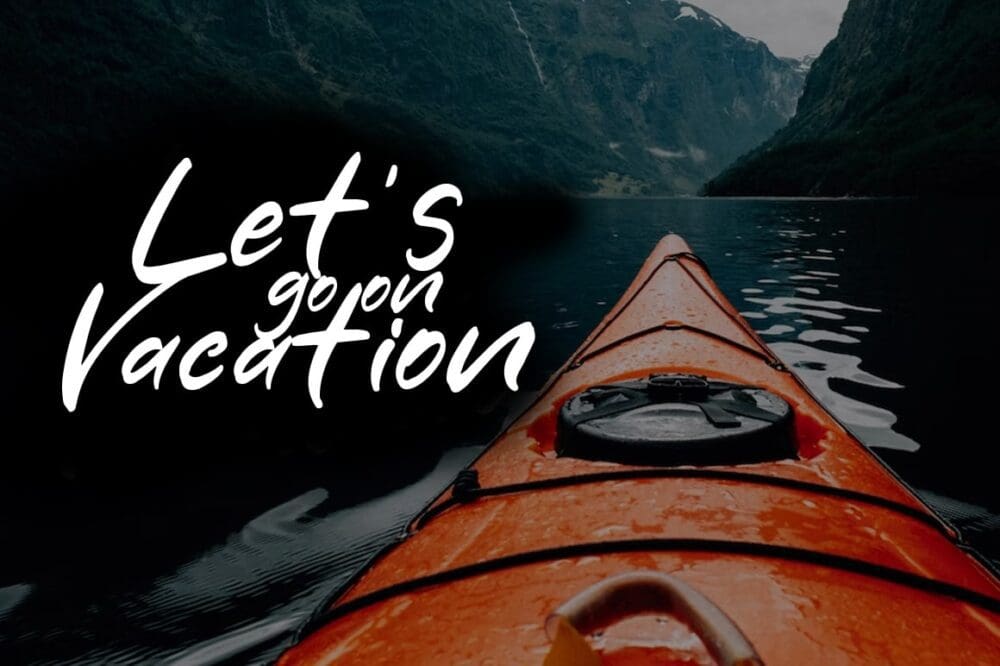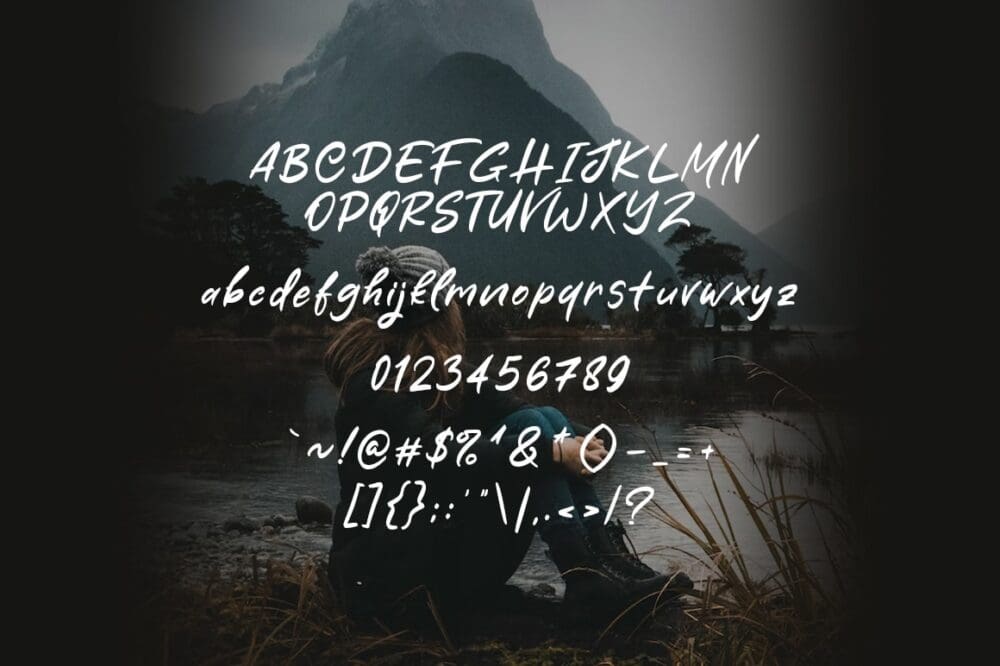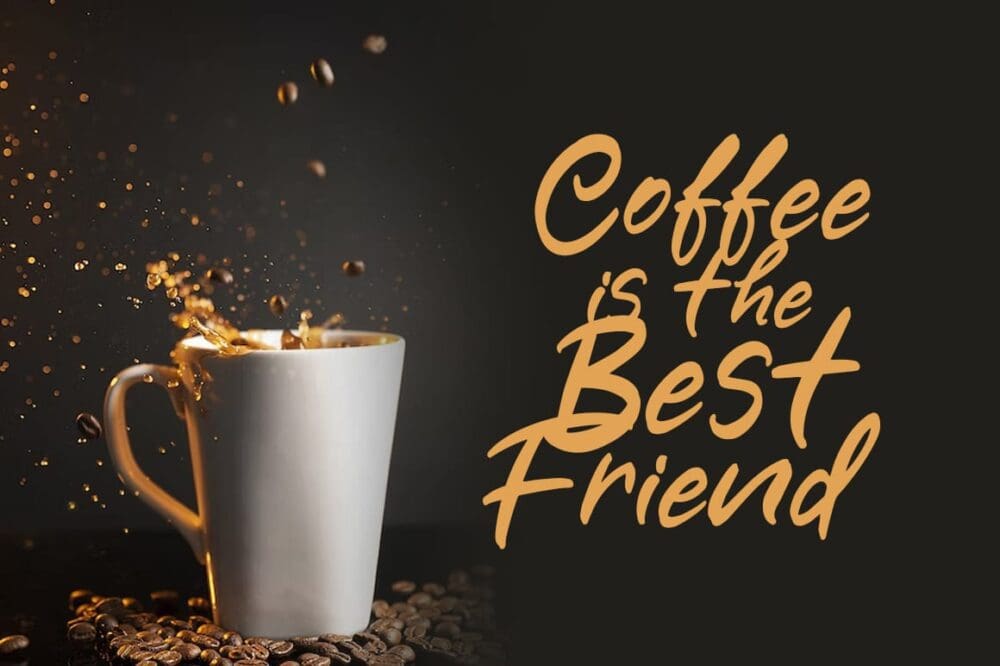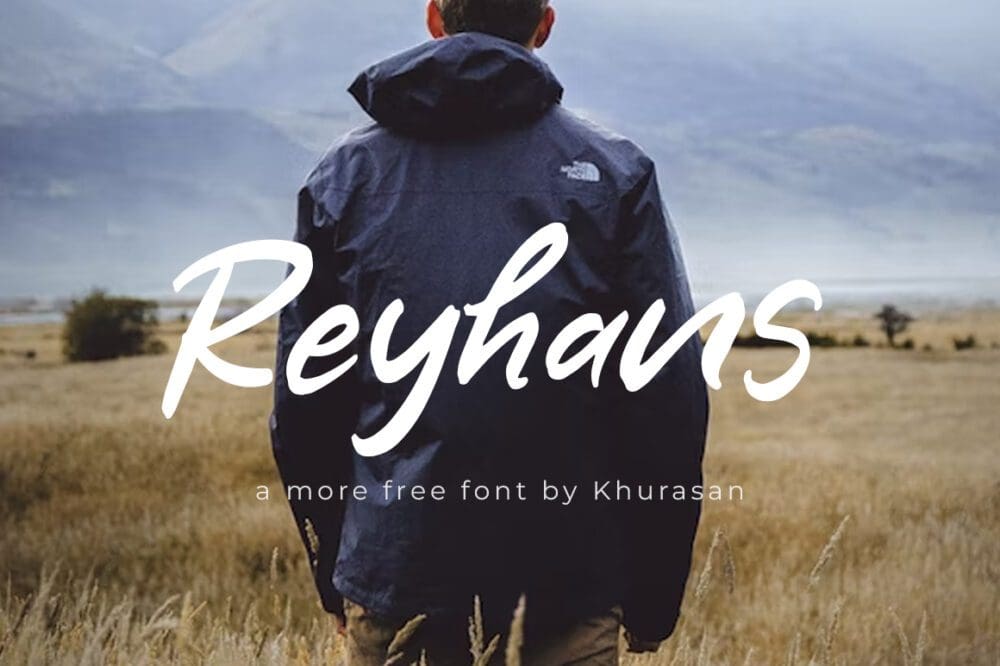
Reyhan Font
Reyhans is a modern brush script font perfect for posters, logos, magazines, book covers, banners, and many more! Get this amazing freebie, and use it to create lovely designs!